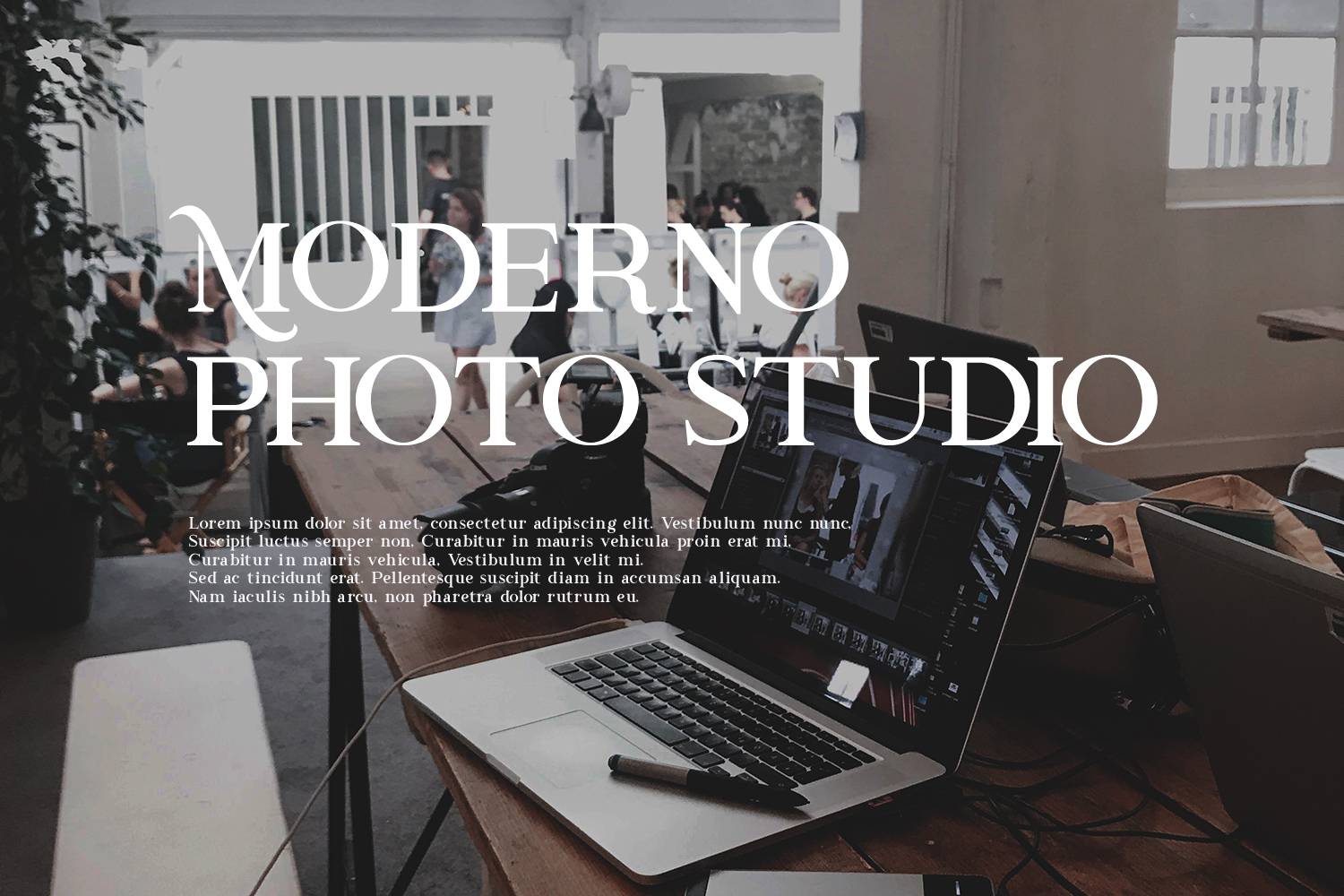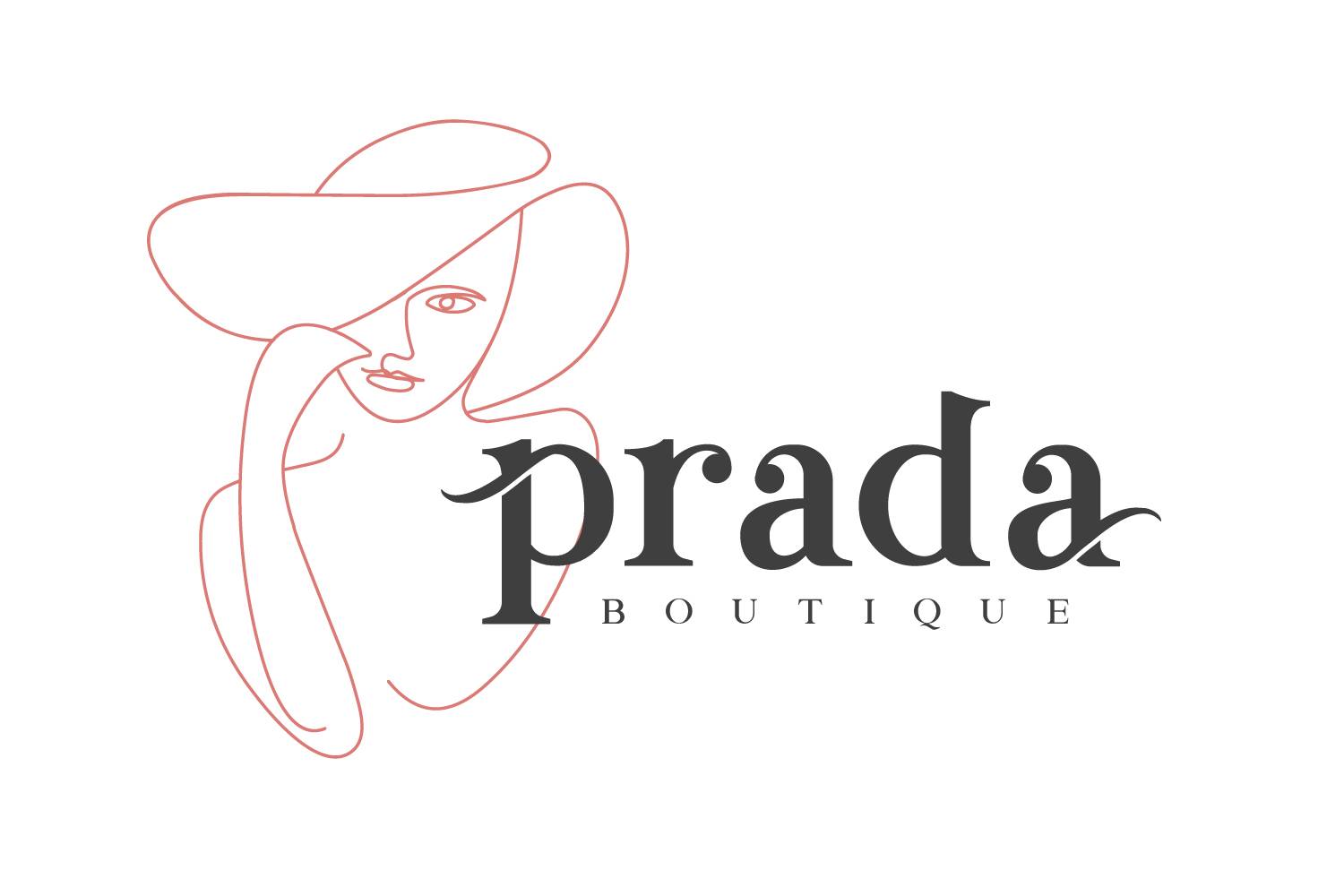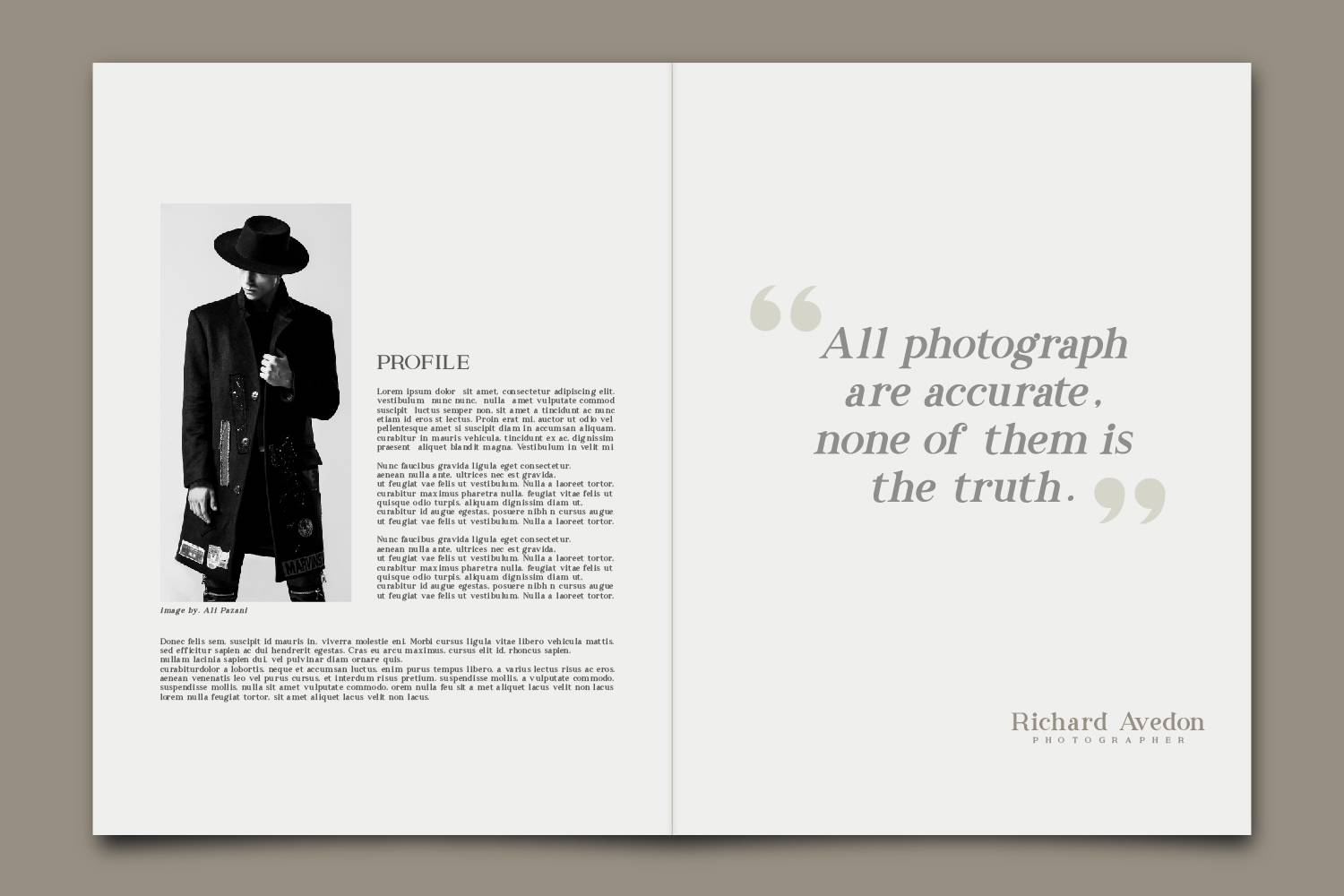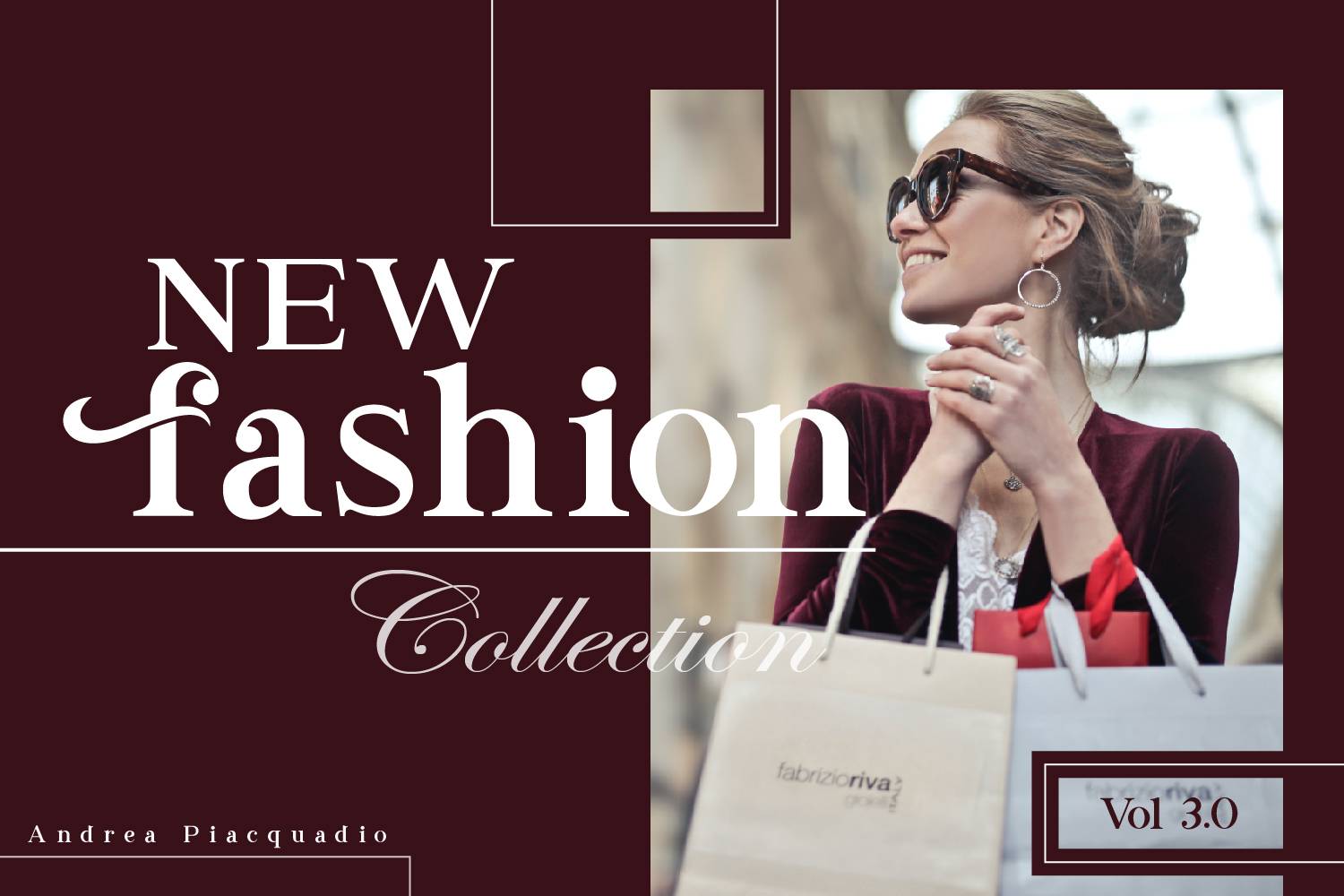
Emphatic is a refined serif font with strong Didone influences, characterized by its high contrast between thick and thin strokes and elegant, sharp serifs. Its tall x-height and clean, classic letterforms create a sophisticated and authoritative feel, making it ideal for luxury branding, editorial design, and striking headlines that demand attention. This font works wonderfully where a polished, timeless style is needed to convey elegance and seriousness.
Emphatic Font
About Emphatic Font